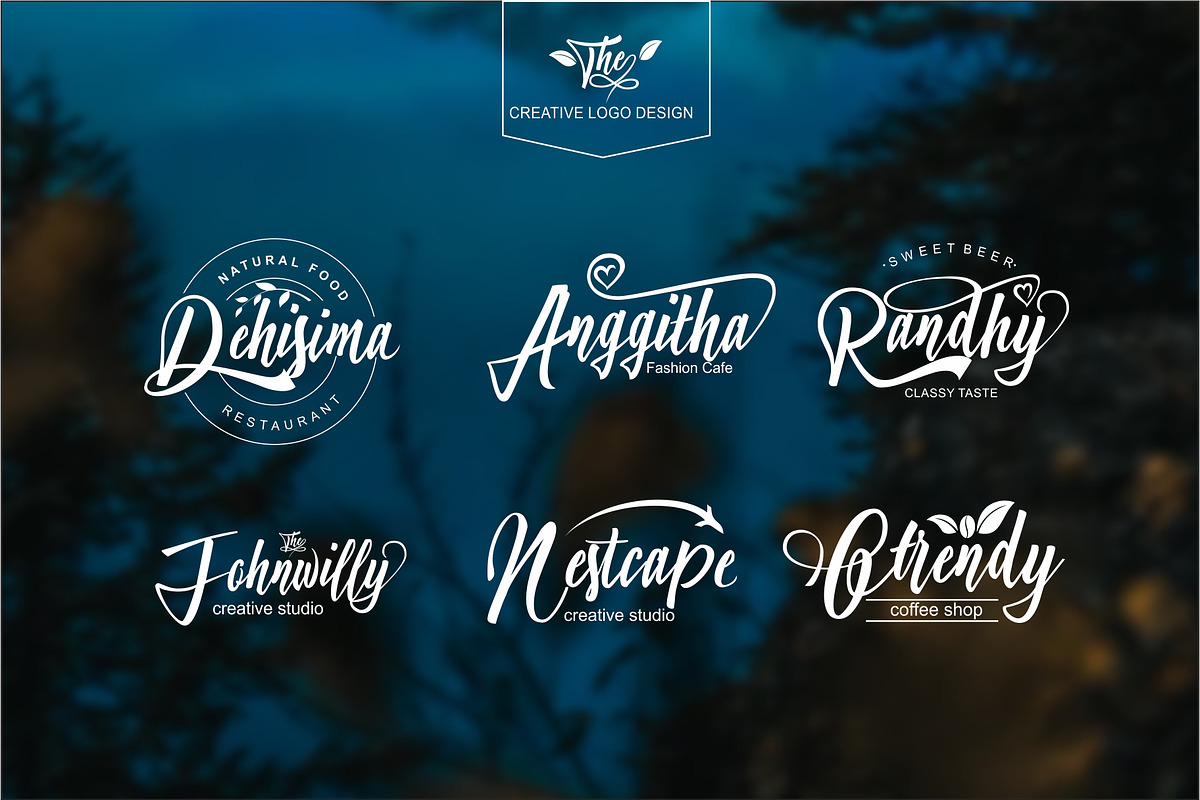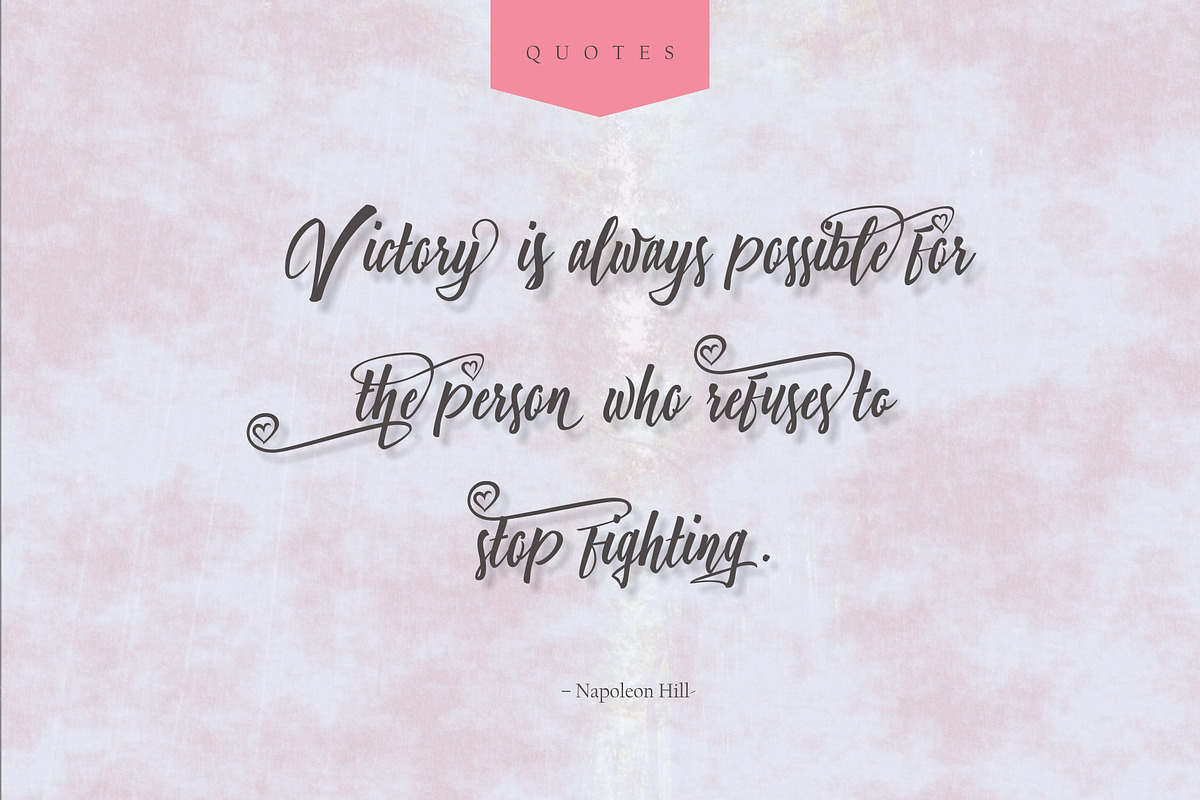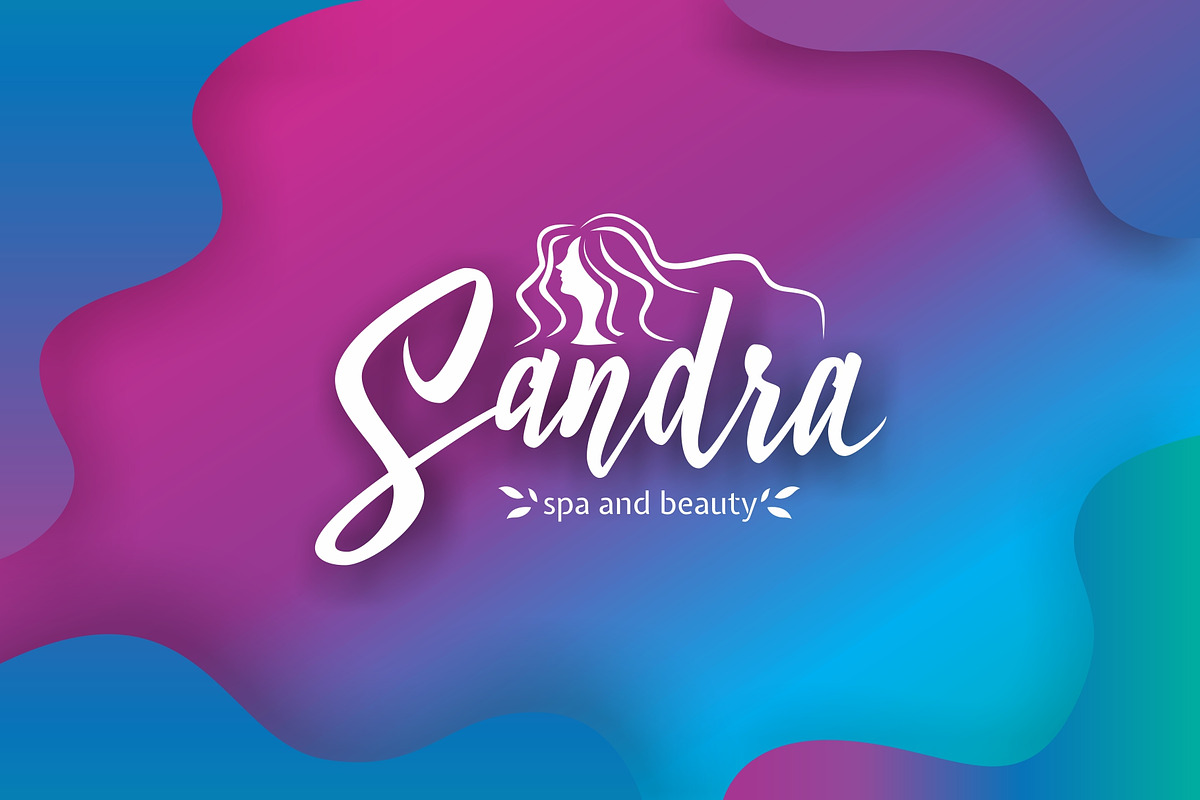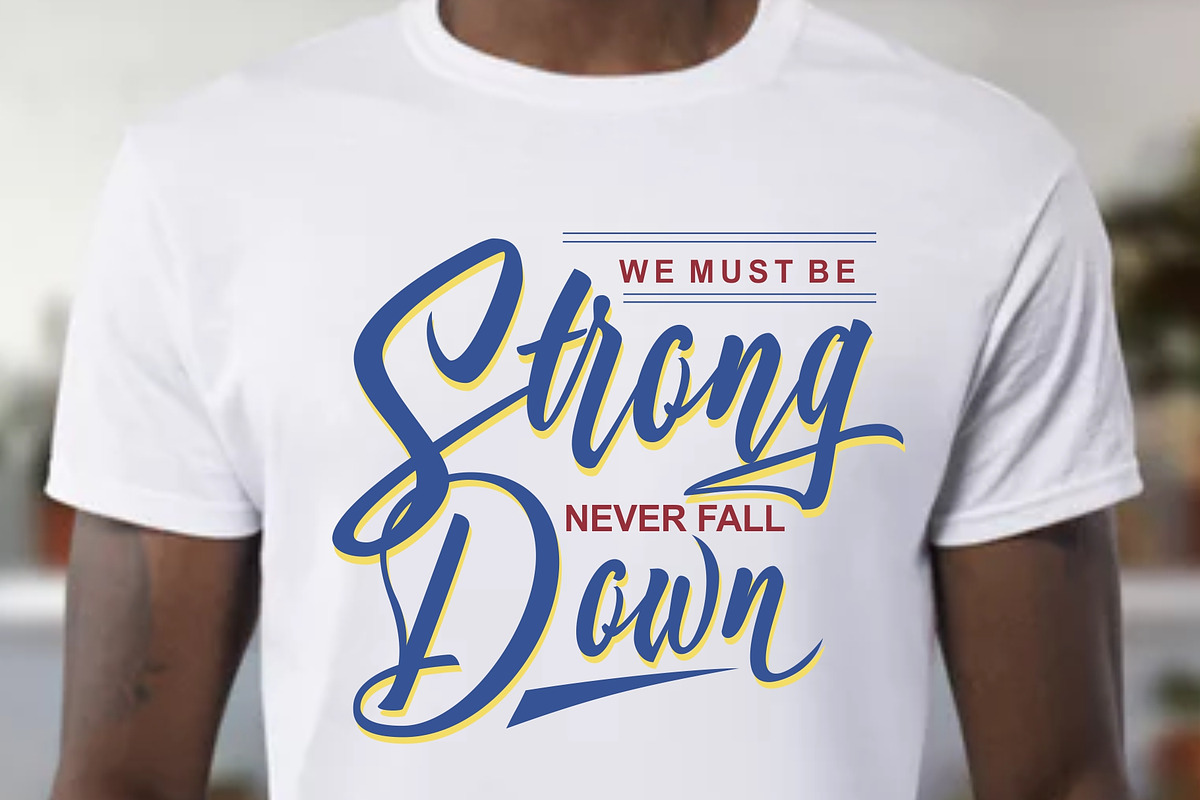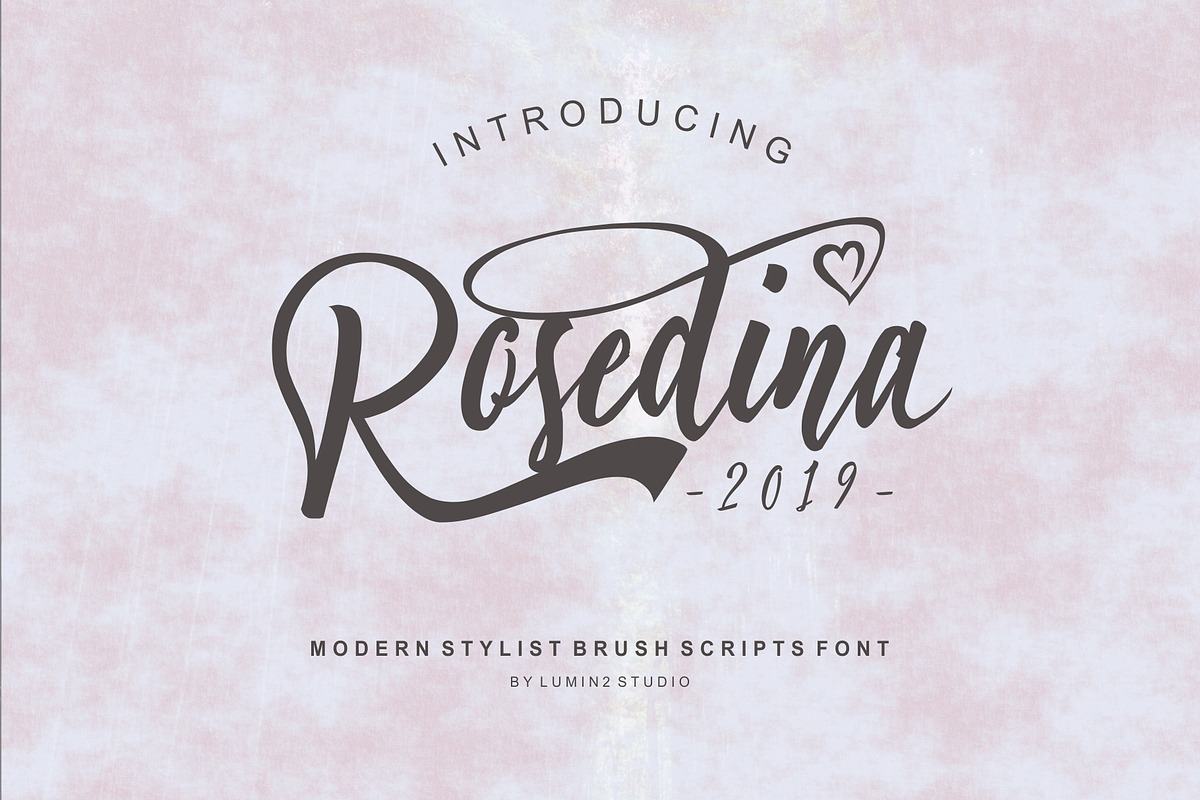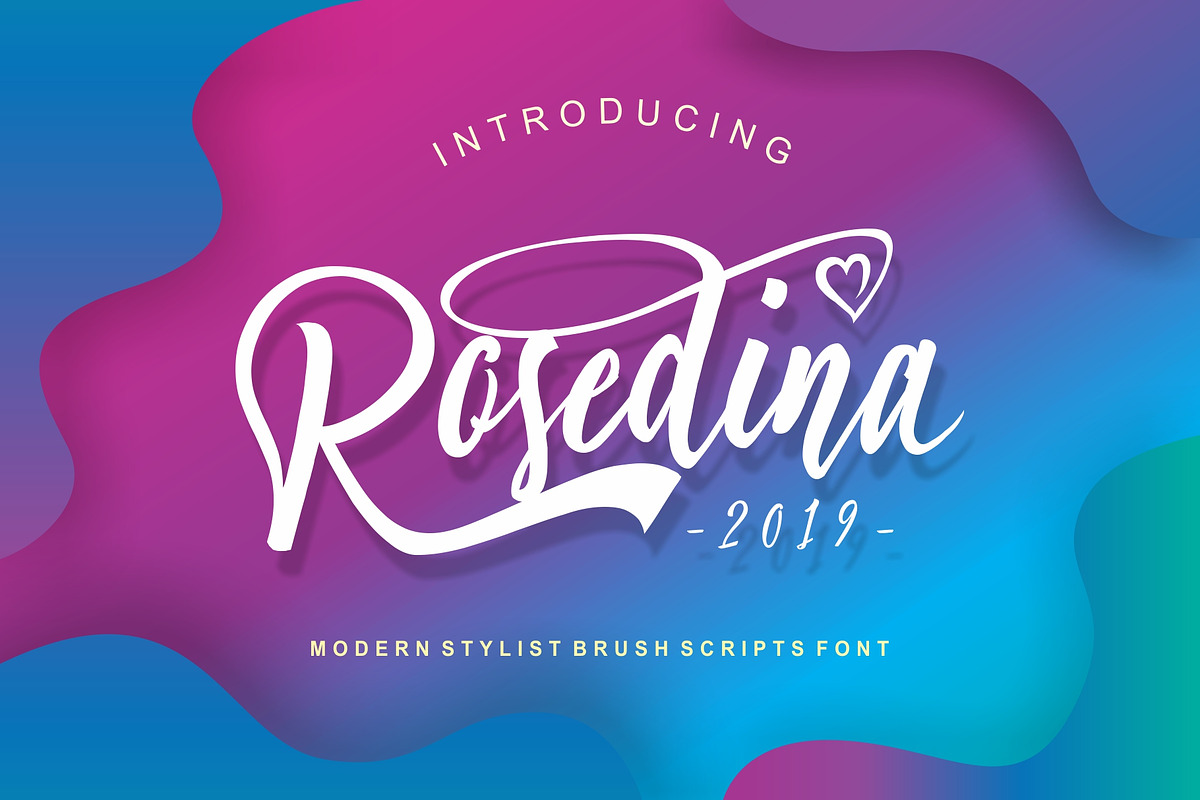
Rosedina Scripts - Beauty font
Rosedina Script fonts are created on the basis of handlettering using a brush pen, very suitable for your creative logo needs based on fonts, writing greeting cards, typography for graphic design work. available features opentype, alternate, beautiful ligature and swash, so that makes it unique and accent, make this font a collection to add to your font list. thank you for your visit.